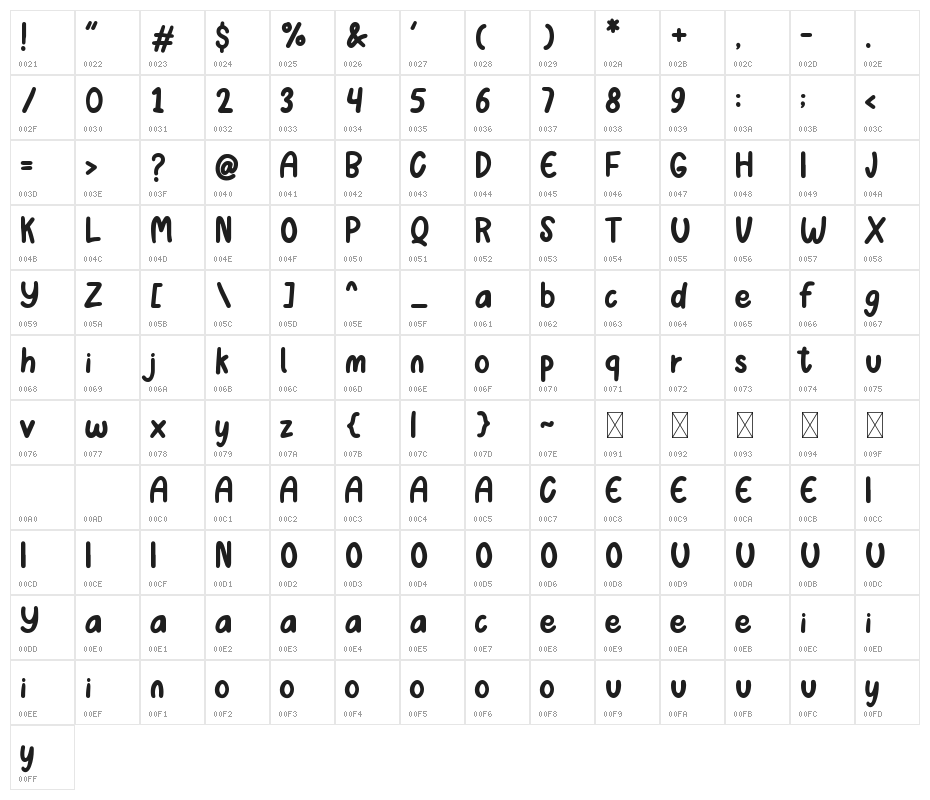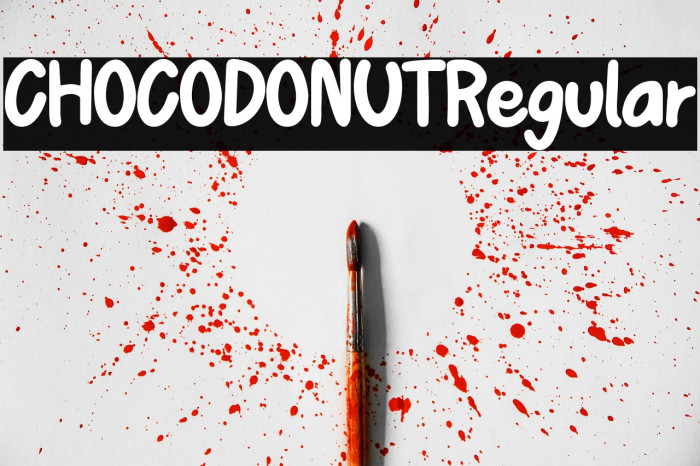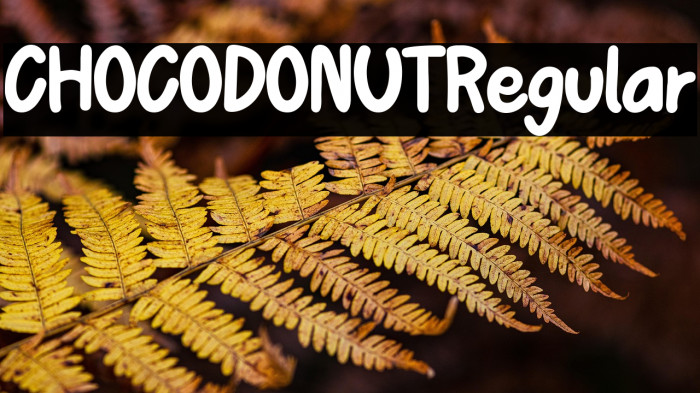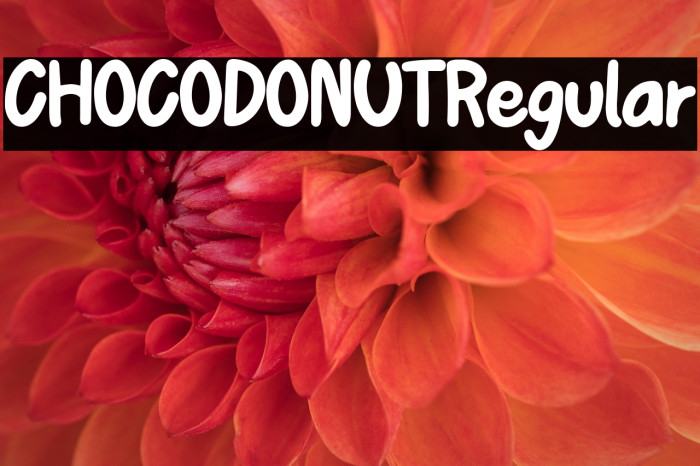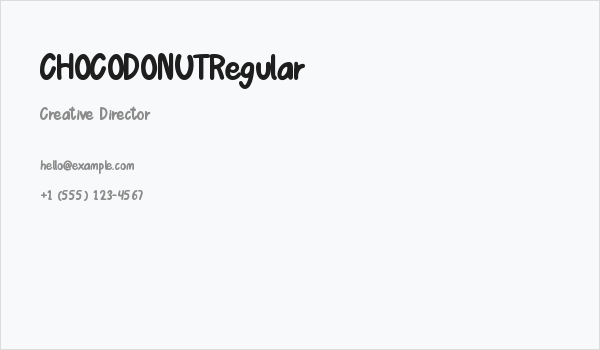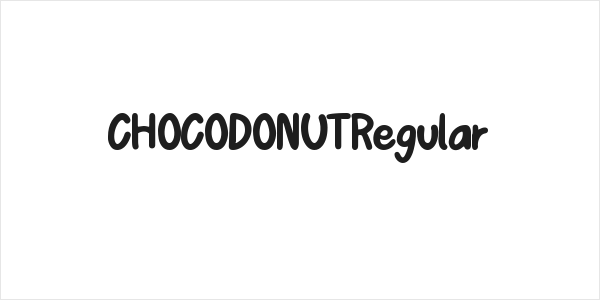
CHOCODONUTRegular Font
CHOCODONUTRegular Description
This playful and bold font features rounded, thick strokes that give it a friendly and approachable appearance. The characters are slightly irregular, adding a whimsical touch that makes it stand out. Its design is reminiscent of hand-drawn lettering, with a smooth flow and consistent weight throughout. The uppercase and lowercase letters maintain a uniform style, while the numerals and special characters integrate seamlessly, ensuring versatility in various design contexts. This font's unique style makes it ideal for projects that require a fun and engaging visual element.
CategoriesComic
Overall StylePlayful, Whimsical
Proposed ProjectsIdeal for children's books, playful branding, casual invitations, and fun social media graphics.